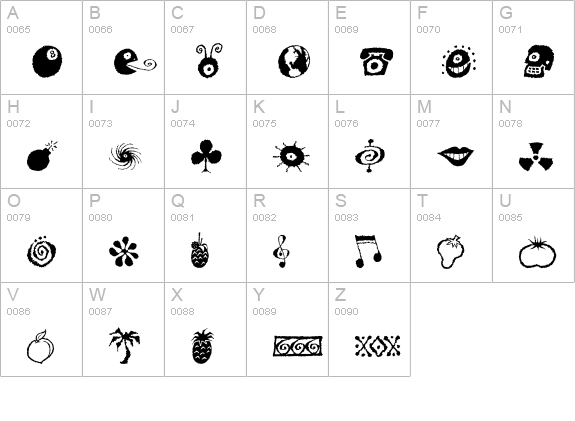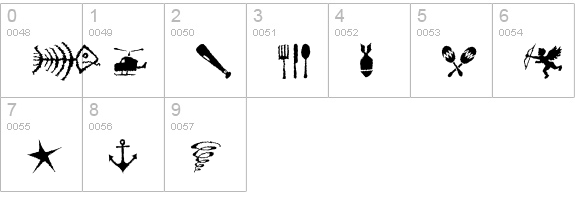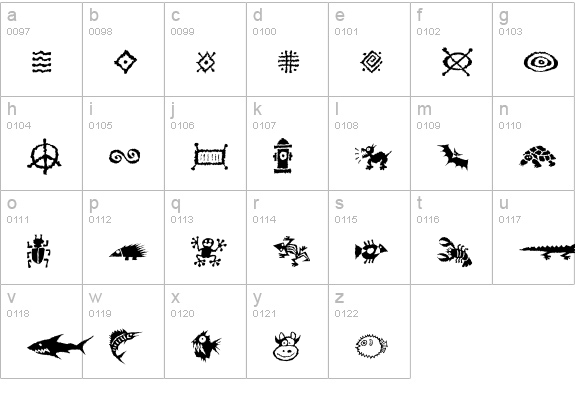
DF Mo Funky Fresh Symbols Font Details
DF Mo Funky Fresh Symbols font is a playful and vibrant typeface that adds a funky and fresh touch to any design project. With its unique symbols and bold style, this font is perfect for creating eye-catching headings, titles, and logos. Whether you're designing a poster, website, or social media graphics, DF Mo Funky Fresh Symbols font will give your work a fun and dynamic look. Best of all, this font is available for free download at FontsMarket.com, making it easily accessible for designers and creatives looking to add a touch of flair to their projects. Don't miss out on the opportunity to enhance your designs with this lively and expressive font. Download DF Mo Funky Fresh Symbols font today and unleash your creativity!